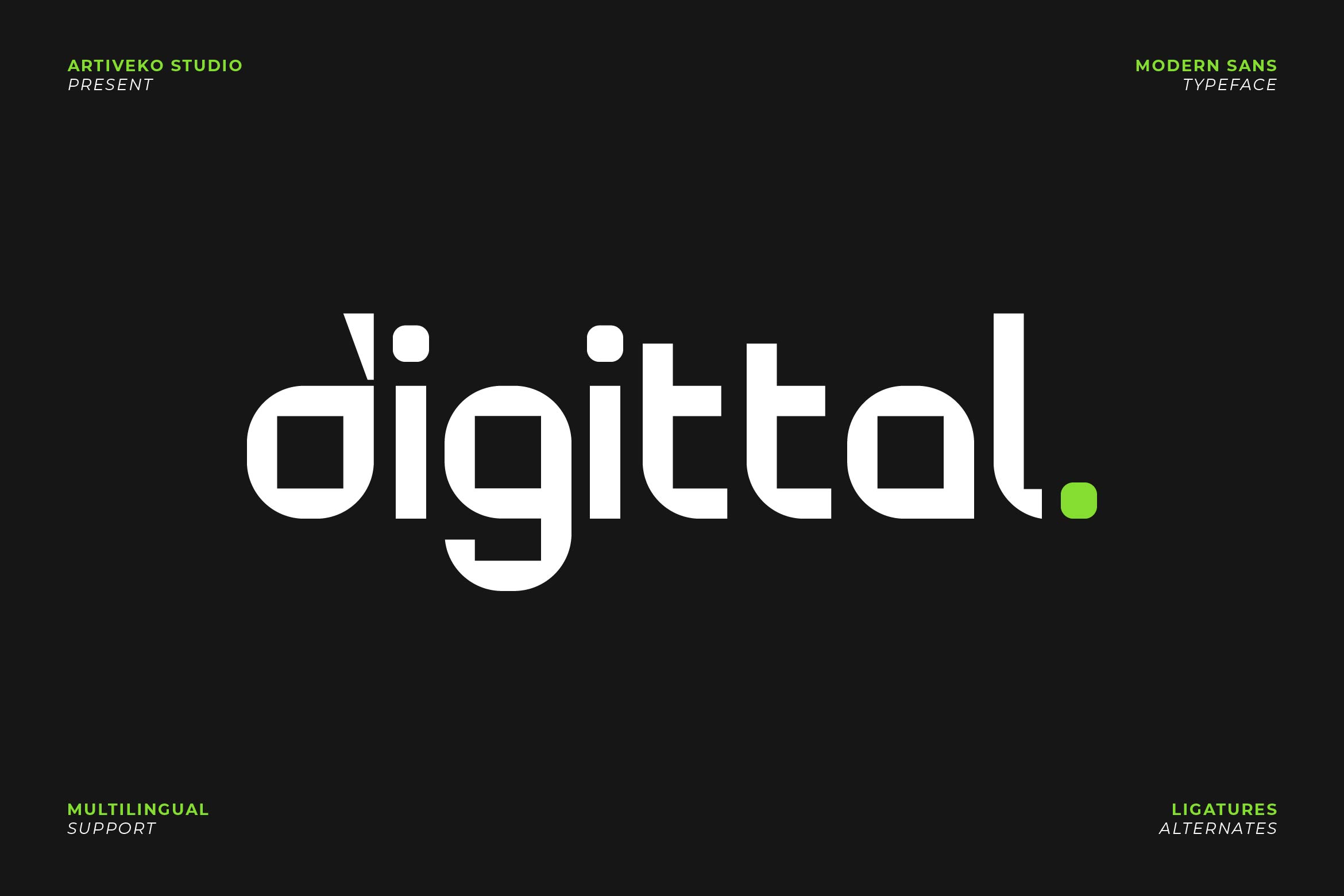
- Digittal Logo Sans Serif Font
Digittal is a sleek and innovative logo font designed to capture the essence of technology and digital advancement. Featuring geometric precision, sharp angles, and a futuristic vibe, Digittal is perfect for tech startups, app logos, gaming titles, digital products, UI/UX design, and modern branding projects that need a cutting-edge look.
Its clean yet distinctive letterforms ensure high readability while giving your designs a bold, forward-thinking identity. Whether used for wordmarks, website headers, or product packaging, Digittal adds a modern and tech-driven character to your typography.
The font includes uppercase and lowercase letters, numerals, punctuation, multilingual support, and stylistic alternates for unique customization and strong branding impact.